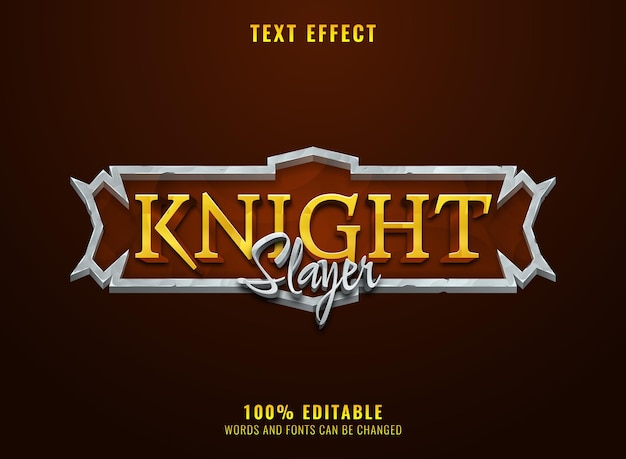
knight text effect font editable typography 3d text for medieval fantasy rpg games vector template
Knight text effect font editable typography 3d text for medieval fantasy rpg games vector template